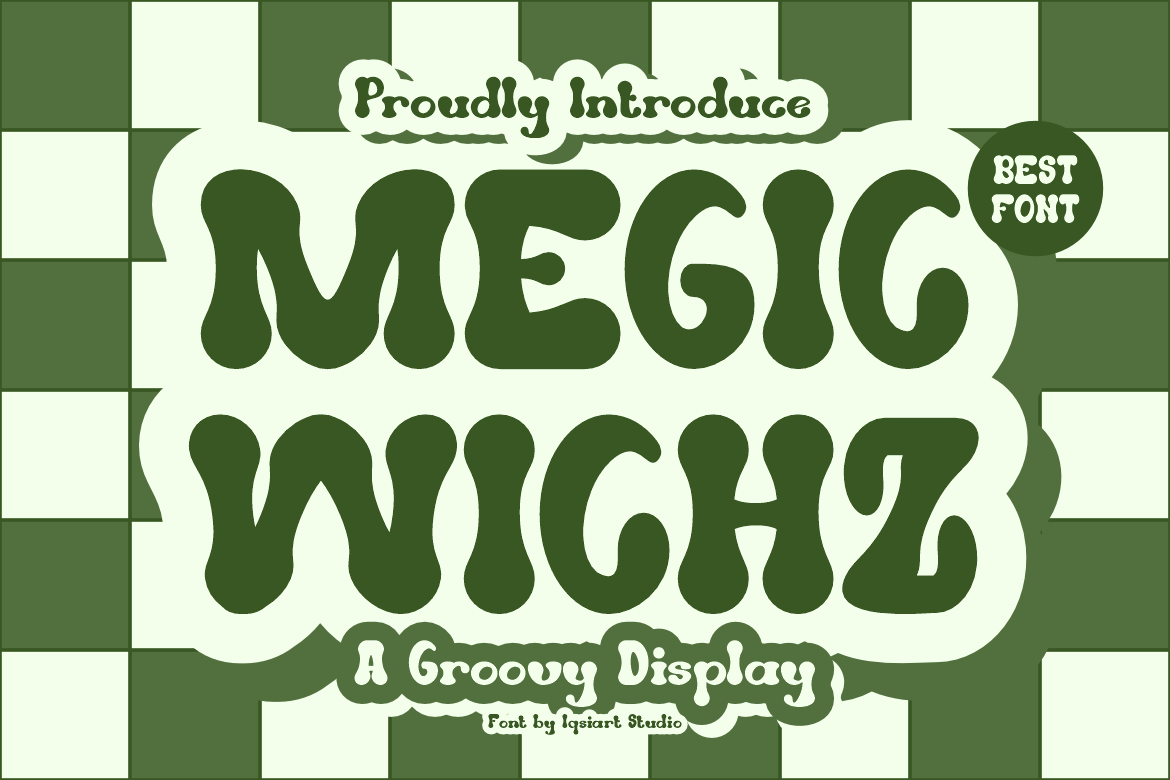
Megic Wichz - Groovy Retro Font
Megic Wichz Font is a best and authentic display font. This font can be used for your various needs. We provide various themes and font styles. visit our profile to get a wide variety of themes and different font styles you need.